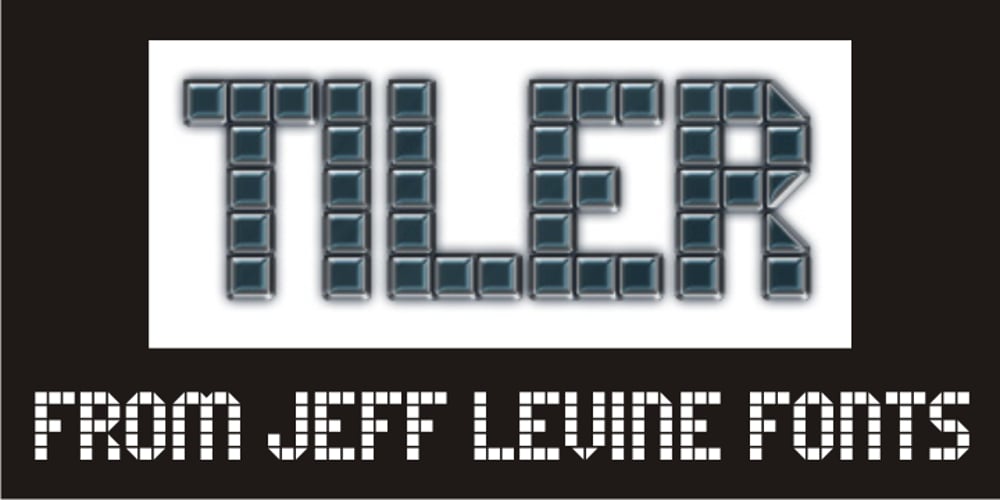
Tiler JNL
Tiler JNL font
Tiler JNL Font Family was designed by Jeff Levine and published by Jeff Levine. Tiler JNL contains 1 styles and family package options. Tiler JNL is a novelty font with geometric styling. Its use can be as diverse as an ad for wall or floor tile to conveying a modular feel within a futuristic setting to signage on the wall of an old-time subway station.